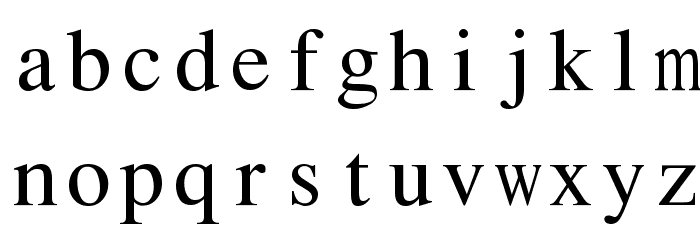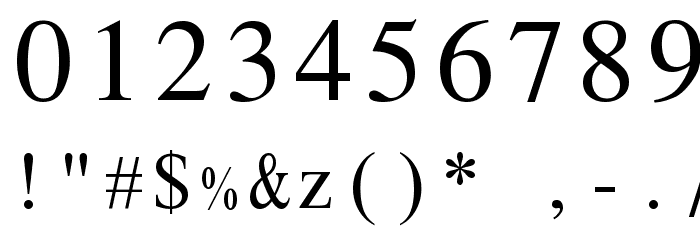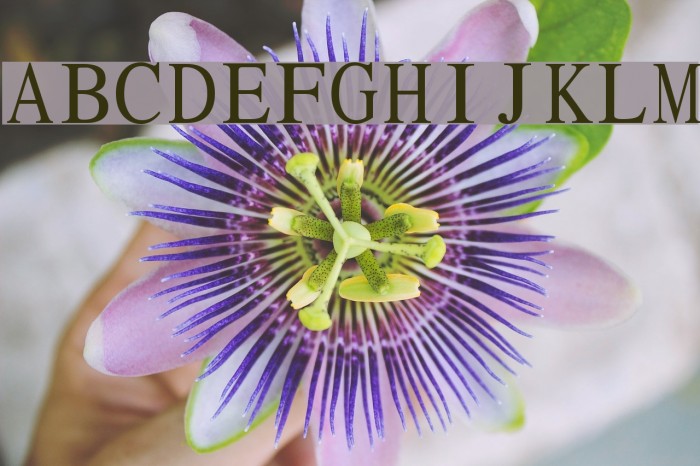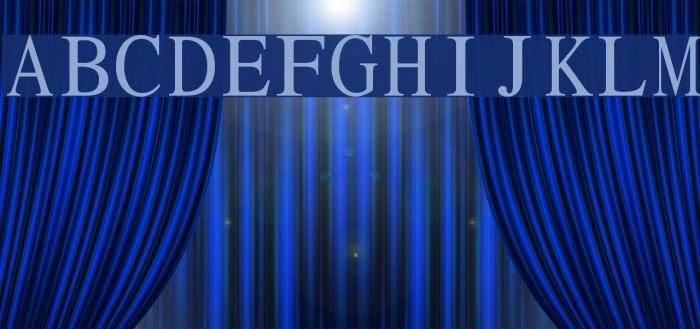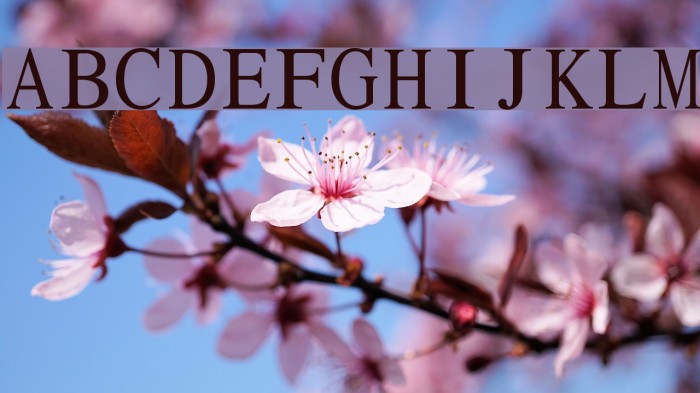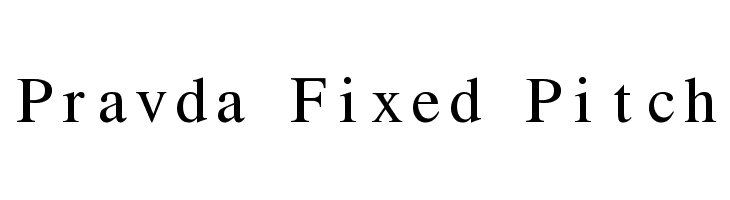
Pravda Fixed Pitch Font
This font features a classic serif style with a balanced and elegant appearance. The characters are well-proportioned, with distinct serifs that add a touch of sophistication. The uppercase letters are bold and commanding, while the lowercase letters maintain a consistent flow. The numerals are clear and easy to read, making them suitable for various applications. Special characters are included, enhancing the font's versatility. The overall design is timeless, making it ideal for projects that require a traditional yet refined look.
A classic serif font with elegant proportions and distinct serifs.
- Proposed Projects: Ideal for editorial design, book covers, formal invitations, and branding projects that require a traditional and sophisticated touch.
- Category: Serif
- Overall Style: Classic